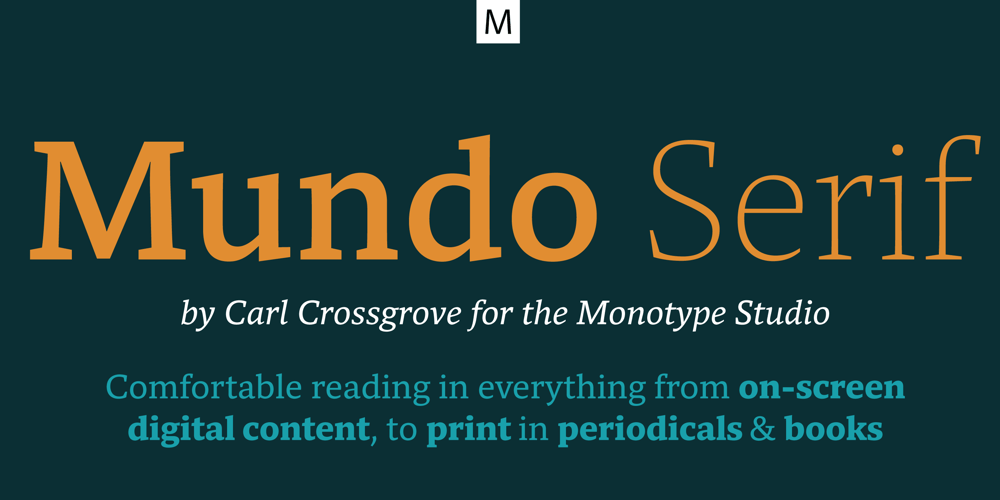
Mundo Serif Font Family was designed by Carl Crossgrove and published by Monotype. Mundo Serif contains 18 styles and family package options. With designs drawn specifically for comfortable reading in everything from on-screen digital content to print in periodicals and books, Mundo Serif is ready to take on just about any project. Carl Crossgrove drew the suite of typefaces to complement his Mundo Sans family’s classic humanistic design traits – and added a subtle modern influence. Restrained stroke modulation, generous counters, commanding x-height and tall ascenders ensure that content set in Mundo Serif is both legible and easy on the eyes. While primarily designed for text copy in print and on screen, Mundo Serif becomes a powerful display type tool in the lightest and boldest weights. Headlines, navigational links and banners are naturals for this versatile collection of typefaces. Mundo Serif is a large family. Nine weights, each with an italic companion, enable precise typographic tuning. Captions, subheads, pull quotes and long-form copy can be melded to create a welcoming page of modulated text. For best results in digital environments, skipping a weight – or even two – ensures hierarchical clarity. Crossgrove did extensive testing of Mundo Serif to ensure the best possible on-screen readability. To further guarantee optimal digital imaging of the family, he gave the design generous inter-character spacing and slightly expanded intricate characters like the lowercase a and g. If the goal is diversified or multi-platform branding, look no further than Mundo Sans. The two designs harmonize with each other perfectly in weight, typographic color and proportion. Both designs benefit from large international character set that includes support for most Central European and many Eastern European languages. For a stronger contrast, pair Mundo Serif with virtually any sans serif grotesque design. Crossgrove has designed a variety of typefaces ranging from the futuristic and organic Biome™ to the warm, clean lines of the Mundo Sans. His work for Monotype also often takes Crossgrove into the realm of custom fronts for branding and non-Latin scripts.